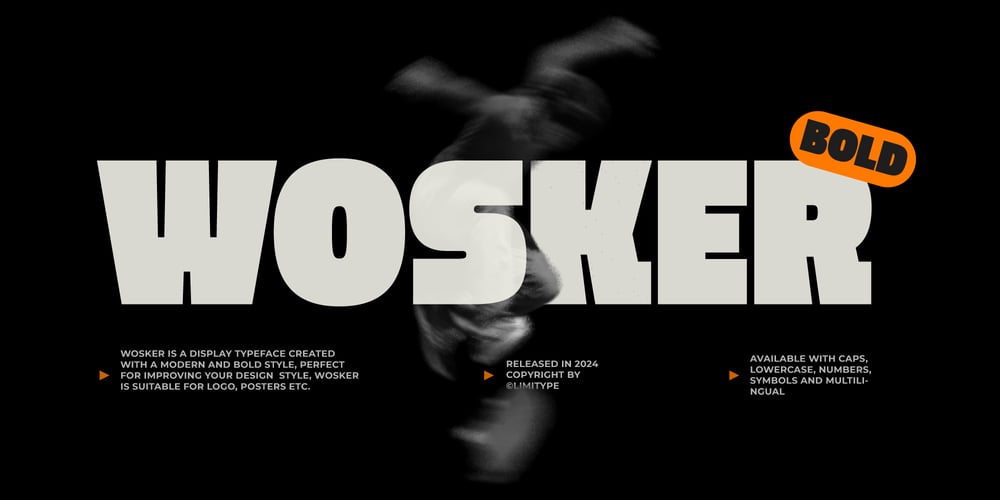
Wosker Font Family was designed by Muhammad Muammar and published by limitype. Wosker contains 1 styles and family package options. Wosker is a display font with bold and modern characteristics, suitable for your designs that require a strong, firm, clear design but still look modern, friendly and not stiff. Wosker font is ready to support your amazing designs.Wosker is equipped with: Upper case Lower case Symbols Number Multilingual